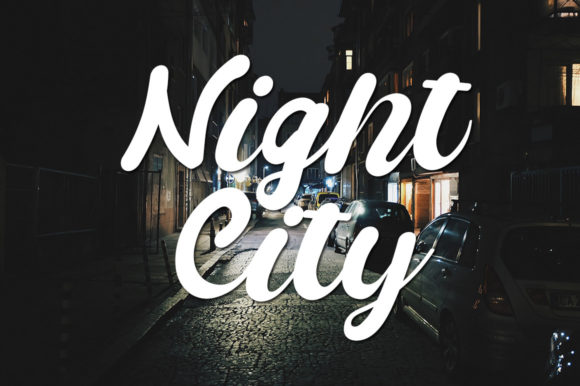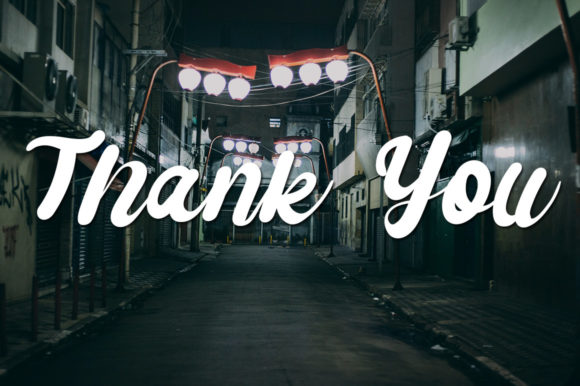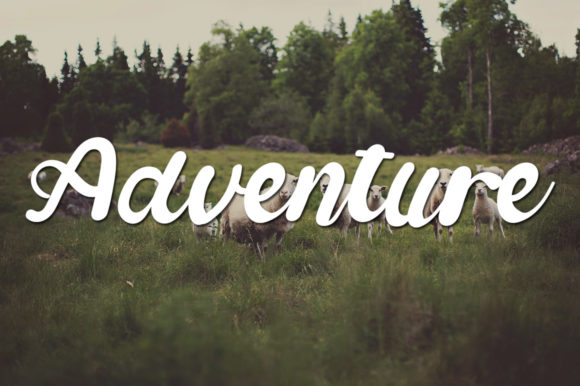
Better Scooter Font
About Better Scooter Font
Better Scooter is a beautiful and trendy looking handwritten font. It is fresh, clean, and elegant. This font will look amazing in a great amount of projects, both formal and informal.